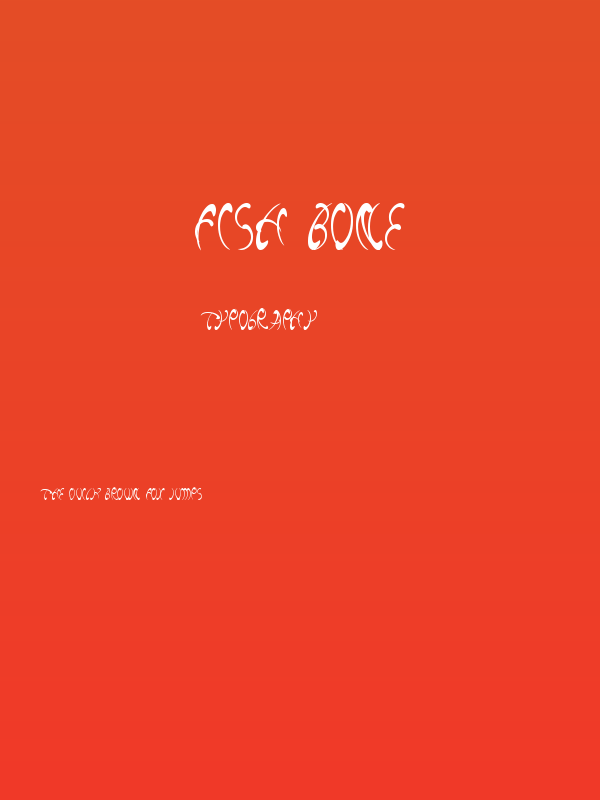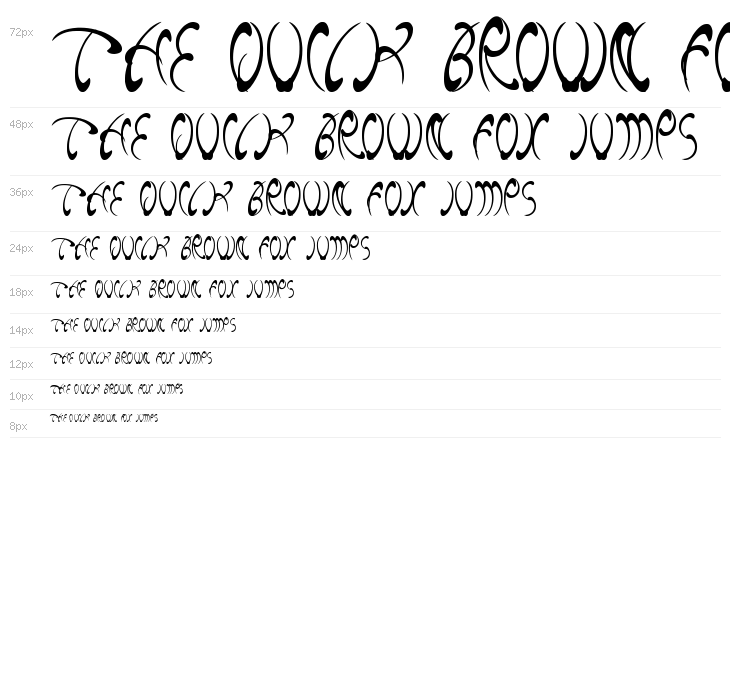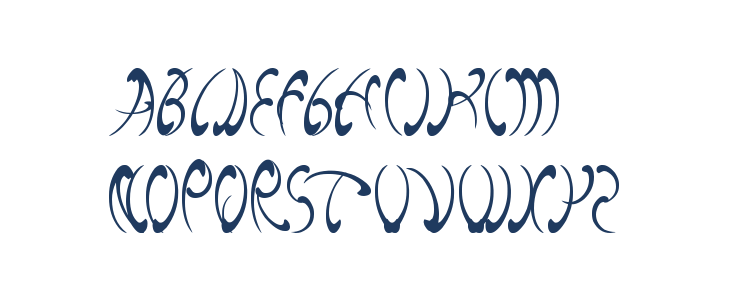
fish bone Font
fish bone Description
This font features a unique and artistic design, characterized by its flowing, curved lines and sharp, pointed edges that resemble fish bones. The letters have a dynamic and fluid appearance, with varying stroke thickness that adds a sense of movement and energy. The uppercase and lowercase characters maintain a consistent style, with exaggerated curves and elongated forms that create a striking visual impact. The overall design is both decorative and distinctive, making it suitable for creative and bold applications.
| Use Case | Logos, Posters, Artistic projects |
| Proposed Projects | Ideal for artistic projects, logos, posters, and any design requiring a bold and unique typeface. |